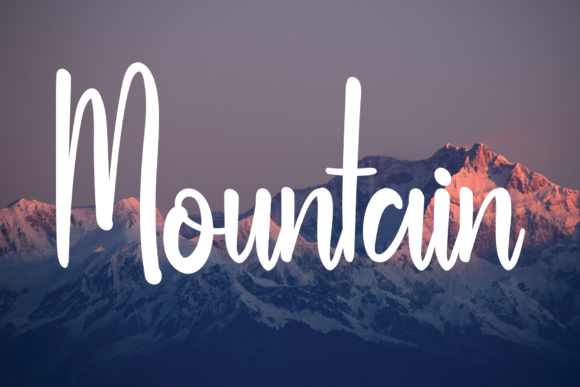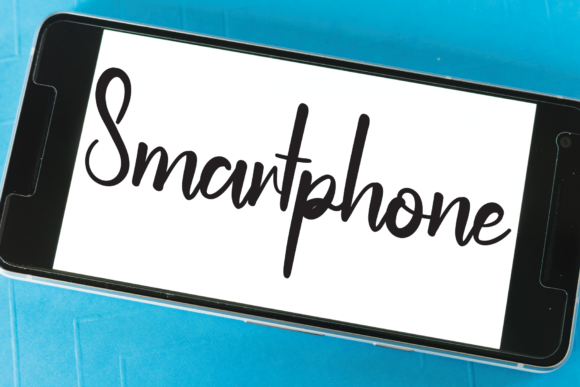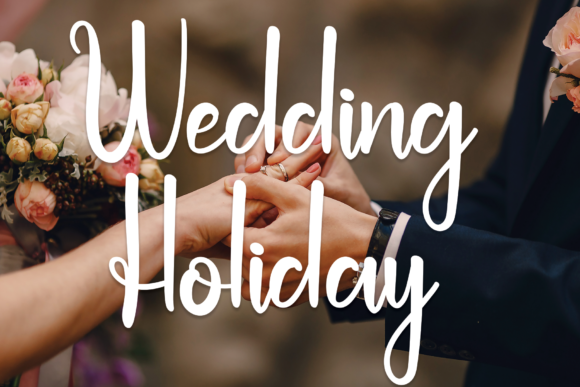
Introduction to Melodic Font
Have you ever found yourself staring at a blank page, trying to decide on the perfect font to bring your creative project to life? The struggle is real, but with the right design resource, all the inspiration you need is just a click away. Today, we’re excited to introduce you to the Melodic Font, a simple yet elegant handwritten font that’s sure to elevate your designs.
Whether you’re a seasoned designer or just starting out, the Melodic Font is an invaluable addition to your toolkit. Its adaptability and high-quality design make it perfect for everything from wedding invitations and business cards to social media posts and wall art. And the best part? This beautiful font is available for free download, complete with a transparent background, making it easy to incorporate into any design project.
Key Features of Melodic Font
- Designed with a unique, melodic aesthetic that adds a touch of elegance to any design, perfect for artistic and creative projects.
- Features a clean and minimalist design, making it easy to integrate into any creative project, from branding to digital art.
Honest Review: Melodic Font
I recently came across the Melodic Font and was excited to give it a try. As a designer, I’m always on the lookout for high-quality design resources to elevate my creative projects. This font definitely caught my attention, and I’m happy to share my thoughts with you.
- ✨ High-quality design: The Melodic Font has a professional and polished look that’s perfect for any creative project.
- ✨ Transparent background: This allows for easy placement of text over images or other design elements.
- ✨ Easy to read: The font is clear and legible, making it perfect for body text or headings.
- ⚠️ Limited character set: The font only includes a limited set of characters, which may not be suitable for projects that require a wide range of glyphs.
- ⚠️ Not ideal for small text: While the font is easy to read, it may not be the best choice for small text sizes due to its relatively large x-height.
Overall, I think the Melodic Font is a solid addition to any designer’s toolkit. While it may have some limitations, its high-quality design and transparent background make it a great choice for many creative projects. As a free download, it’s definitely worth checking out.
Melodic Font
Tips for Getting the Most Out of Melodic Font
To get the most out of Melodic Font, use it in a creative project that showcases its high-quality design. Consider using a transparent background to add depth and visual interest. You can also experiment with different font sizes, colors, and styles to achieve a unique look.
Melodic Font is a versatile design resource that can be used in a variety of projects, including logos, posters, social media graphics, presentations, and documents. It’s also a great choice for designers who want a free download of a high-quality font with a transparent background.